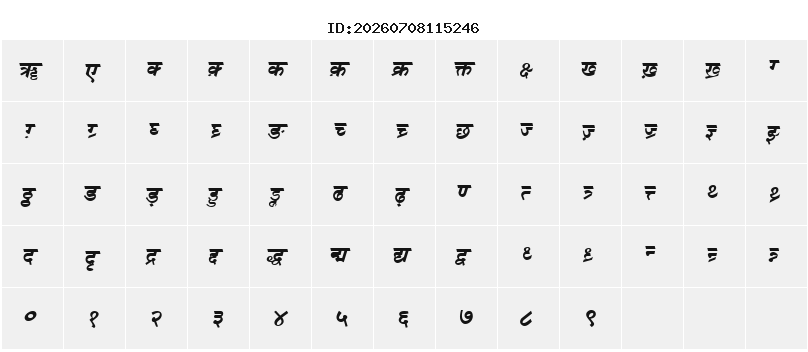
DV-TTSurekh Preview
• Font Name: DV-TTSurekh
• Font ID: CDAC:DV-TTSurekh Bold Italic
• Full Font Name: DV-TTSurekh Bold Italic
• Version: 1.0 Fri Nov 03 14:16:35 1995
• PostScript Name: DV-TTSurekh Bold Italic
About DV-TTSurekh.ttf
DV-TTSurekh.ttf is a modern, elegant sans-serif font designed for ultimate readability and visual harmony. Perfect for branding, headlines, web design, and print materials.